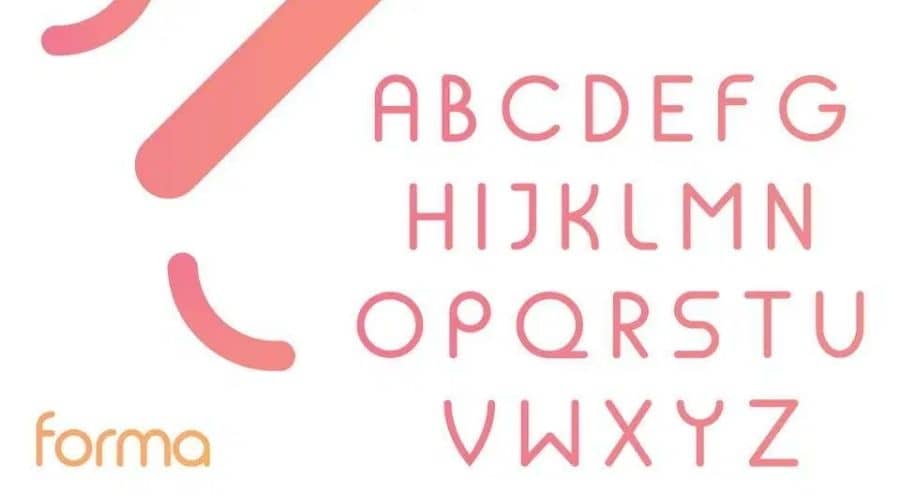
Forma Font
Forma is now available! It’s a one-of-a-kind sans serif typeface. Matthew Bishop created and shared this Font. On March 3, 2019, the Font was made available to the public. The Font is a sophisticated ‘New Age’ typeface with a focused on design and presentation originality. Forma is an experimental typography project that uses a variety of based materials. Plastic, metal, and wood, to name a few. It comes in a conventional form as well as three dingbat versions, allowing you to personalize the letters and have fun changing and modifying them.
The goal is to be as creative as possible; there is also a rough version, which is a little rough. Forma is the appropriate typeface for bright and distinctive projects since it is soft and rounded, geometric and delicate. Working directly with metal type was a first for us, but it demonstrated how Forma had been altered for various sizes and weights, aiding our understanding of some of the historic face’s main design aspects. OTF and TTF are the two formats in which the typeface is offered.
Forma is ideal for branding projects, homeware designs, product packaging, magazine headings, and even as a classy text overlay on any backdrop image. This Font is the appropriate typeface for bright and distinctive projects since it is soft and rounded, geometric and delicate. The Font is mostly perfect for headings, subheadings, and display-related projects. The Forma Font is suitable for usage in quotes, notes, cards, posters, branding, products, logos, blogs, fashion and apparel, notes, quotes, prints, social media, and other crafts. Because the typeface is humorous and various other things, it can be utilized in any project that calls for miscellaneous typefaces.
| Name | Forma Font |
| Style | Sans Serif |
| Designer | Matthew Bishop |